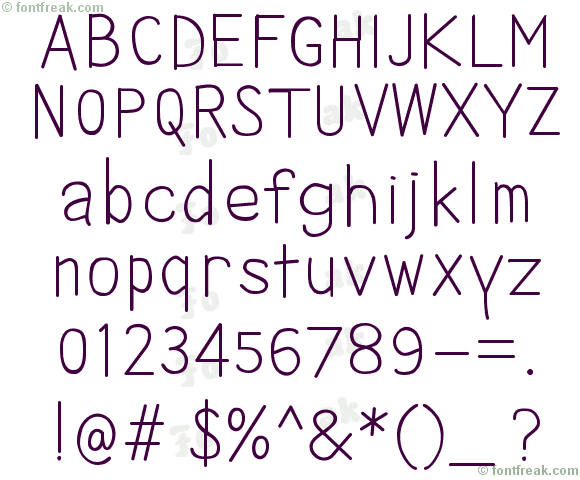
Ikan Besar
About Ikan Besar
The Ikan Besar font, designed by Adien Gunarta, is a captivating display font that stands out for its unique and playful character. This font is classified as a decorative typeface, which makes it an excellent choice for creative projects that require a touch of whimsy and charm. The visual characteristics of Ikan Besar include a moderate stroke weight and minimal contrast, giving it a friendly and approachable look. The letterforms are rounded and spacious, allowing for optimal readability while retaining a casual elegance. The simplicity of the design is complemented by subtle decorative elements that add personality without overwhelming the viewer.
Ikan Besar is particularly well-suited for a variety of use cases. It can be used effectively for wedding invitations, providing a light-hearted yet sophisticated aesthetic. Additionally, it's a great choice for restaurant menus, where it can help convey a welcoming atmosphere. The font’s playful nature also makes it ideal for children’s book covers, marketing materials for family-oriented products, and vibrant social media graphics. This versatility makes it appealing to a wide range of audiences, including graphic designers, small business owners, and content creators looking to make a memorable impression.